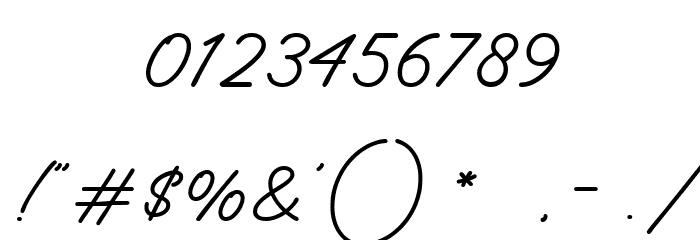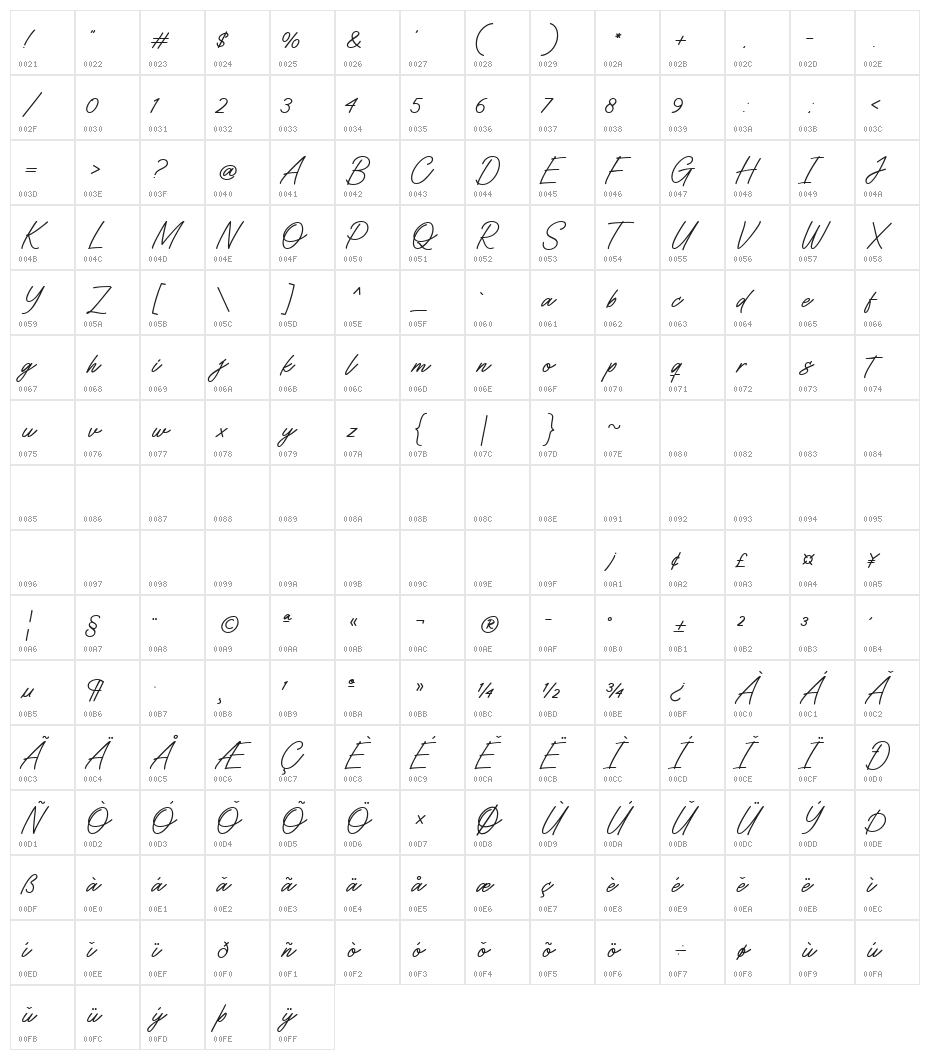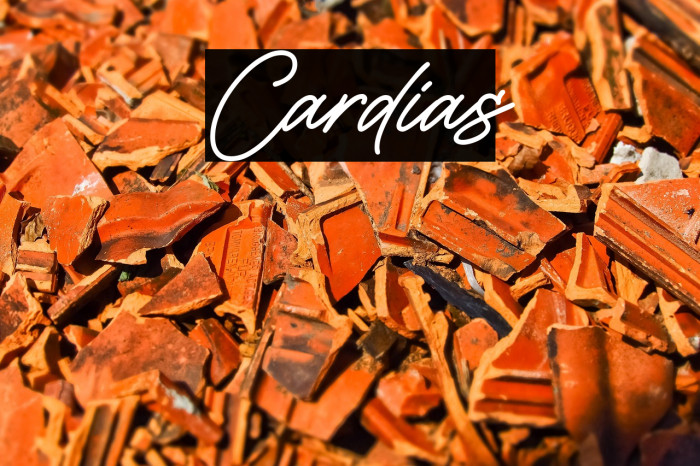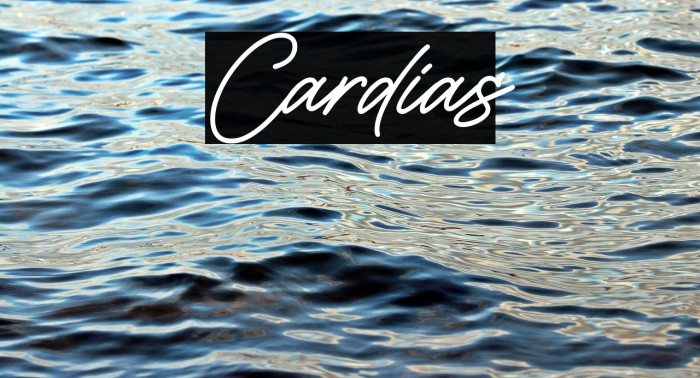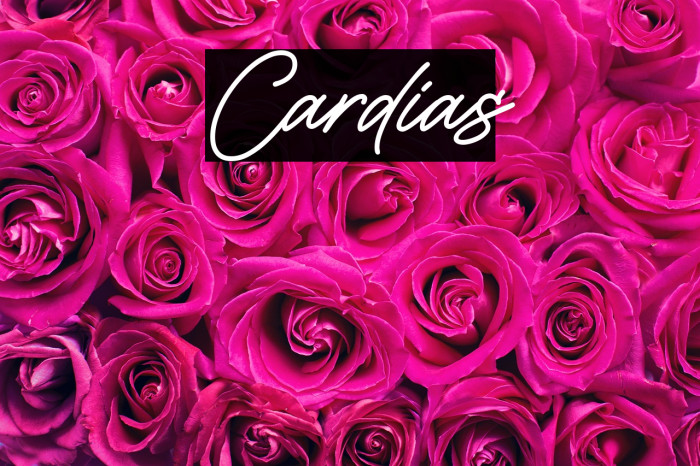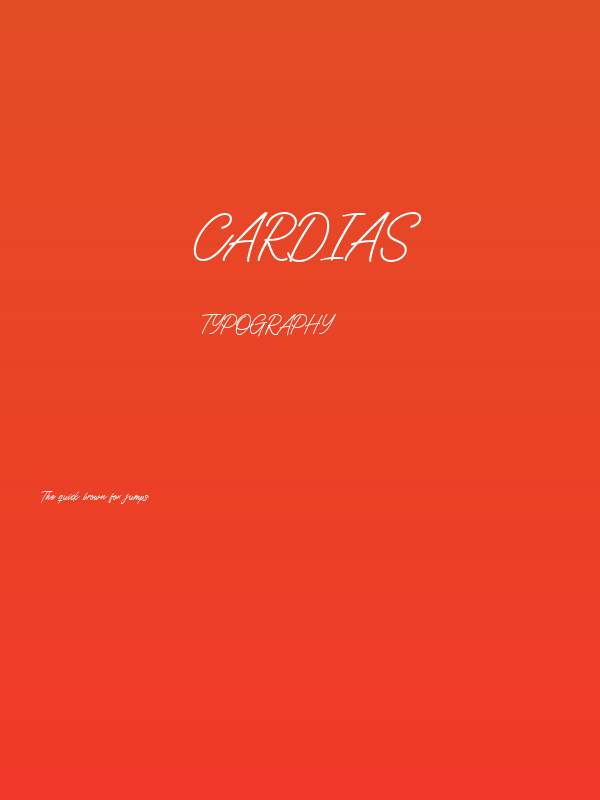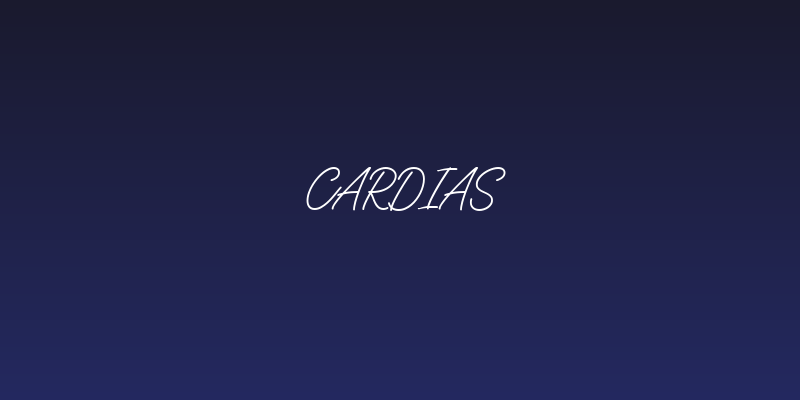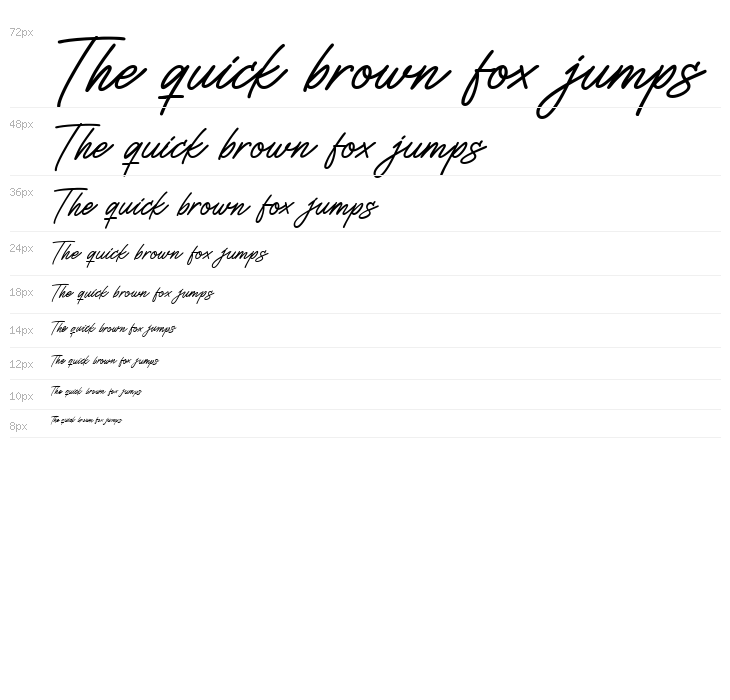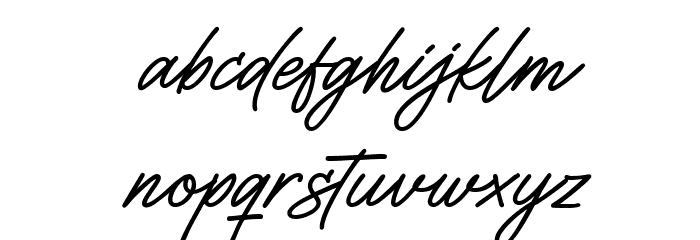
Cardias Font
Cardias Description
This font exudes a sense of elegance and fluidity, characterized by its cursive, handwritten style. The letters are interconnected, creating a seamless flow that mimics natural handwriting. The uppercase letters are tall and slightly slanted, while the lowercase letters maintain a consistent, flowing baseline. The numerals are distinct yet harmonize well with the overall script style. Special characters are crafted with the same attention to detail, ensuring they blend seamlessly with the alphabetic characters. This font is ideal for projects that require a personal touch, such as invitations, greeting cards, or branding materials that aim to convey sophistication and warmth.
Overall StyleElegant
Use CaseHeadlines, Invitations, Branding
Proposed ProjectsIdeal for wedding invitations, personal branding, greeting cards, and elegant stationery.